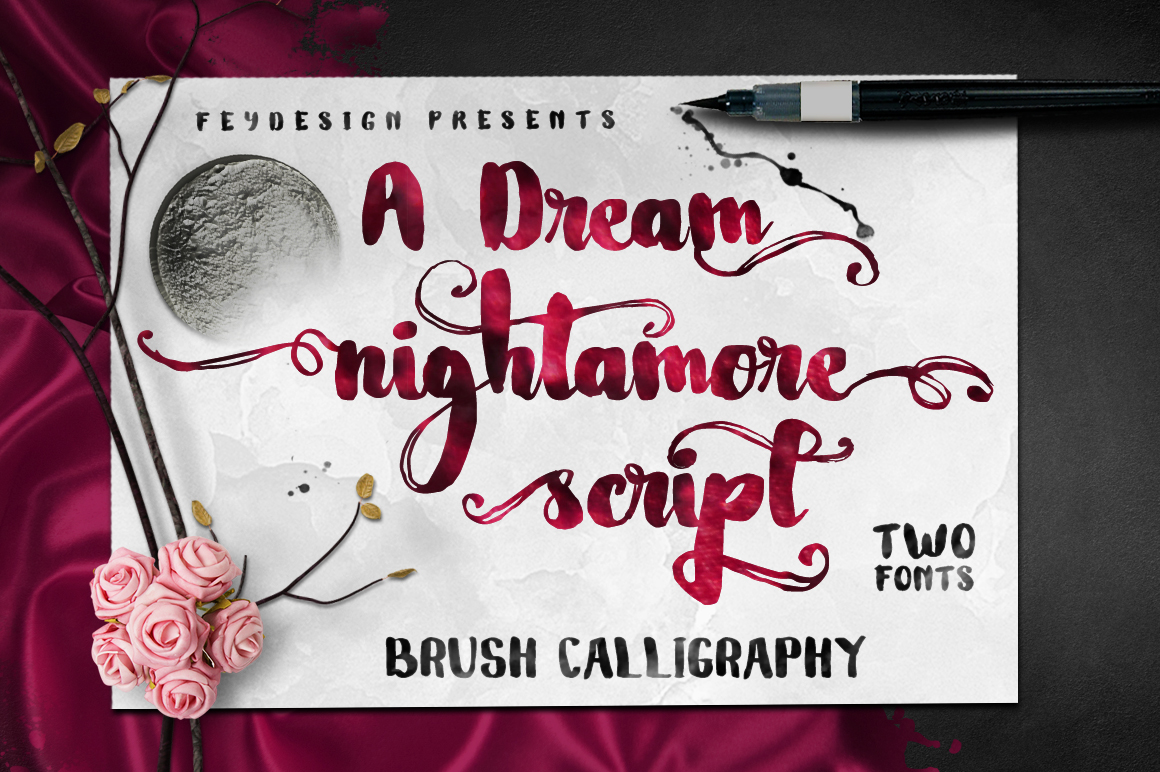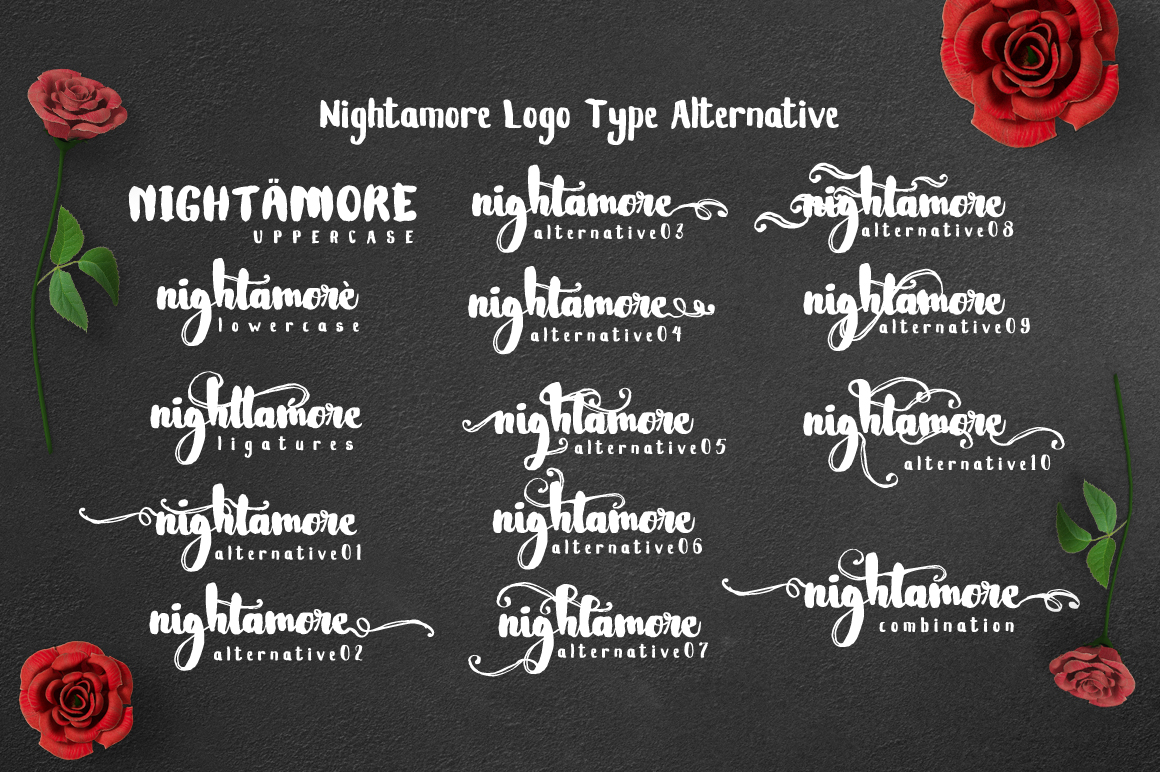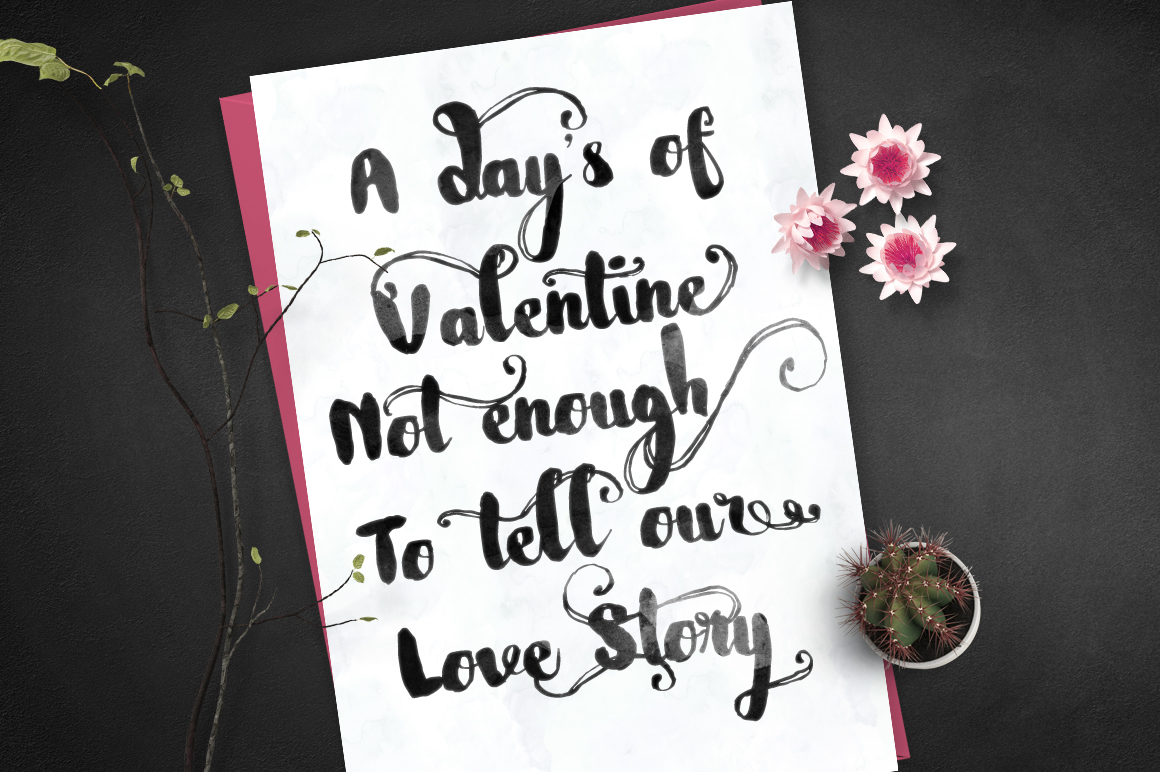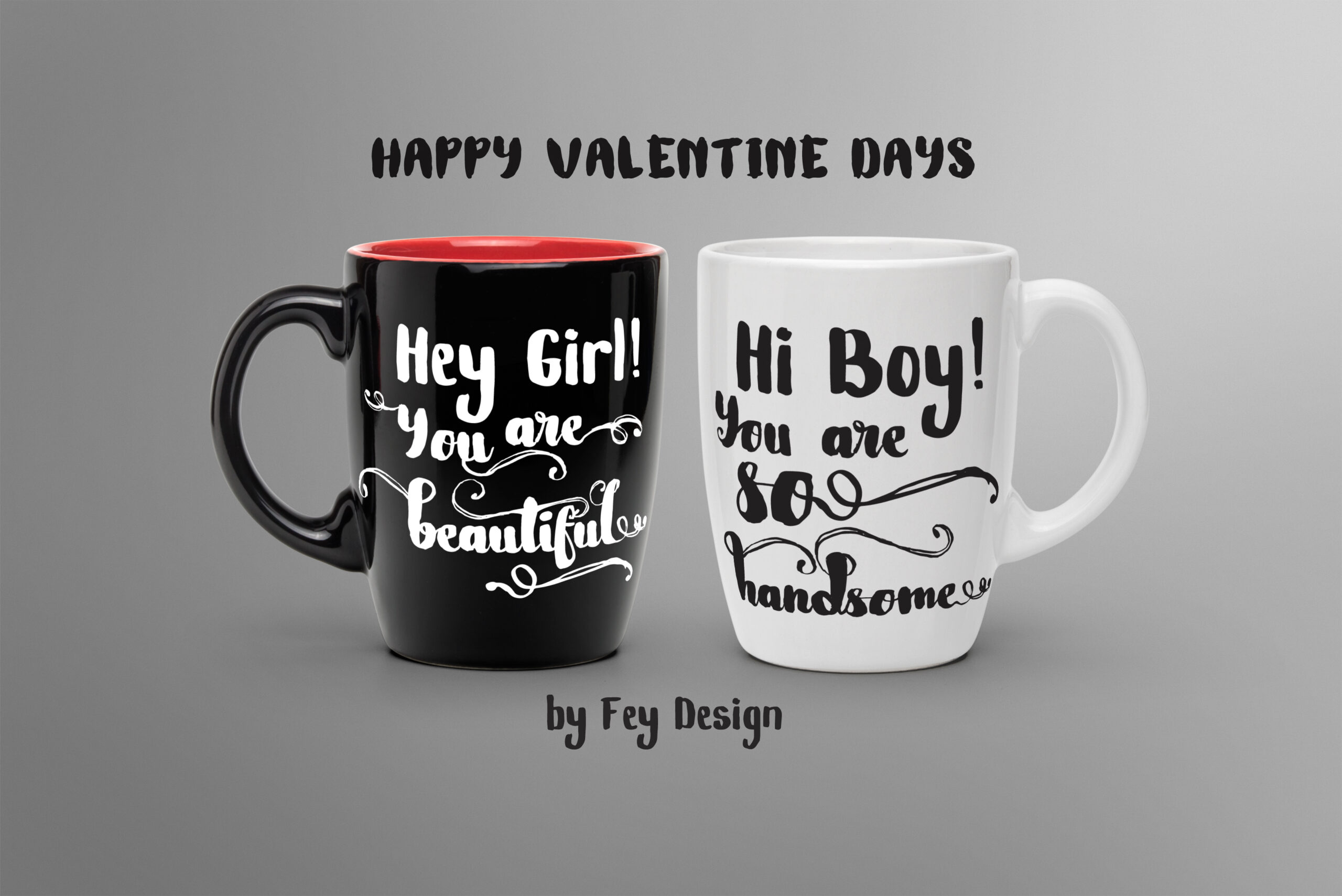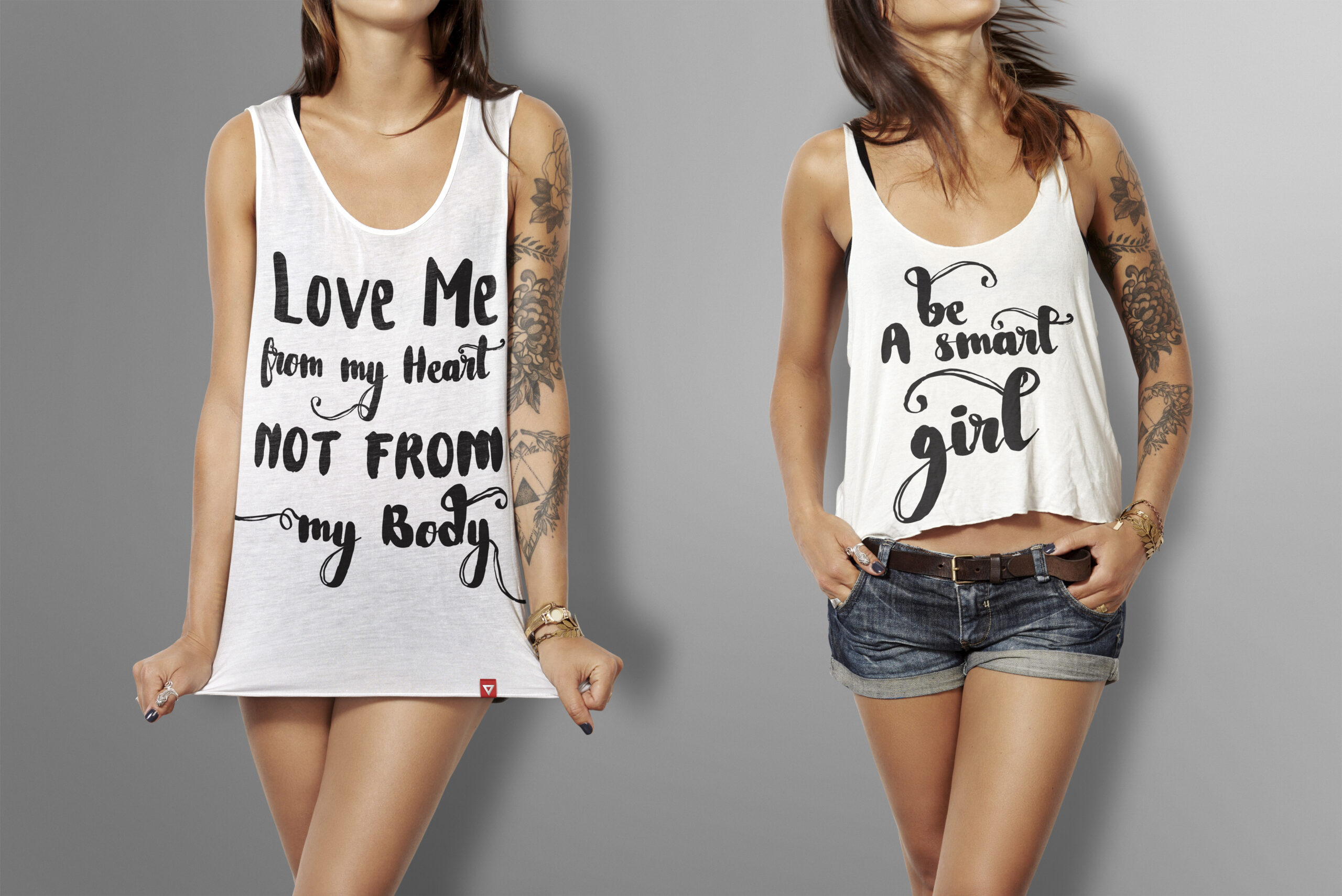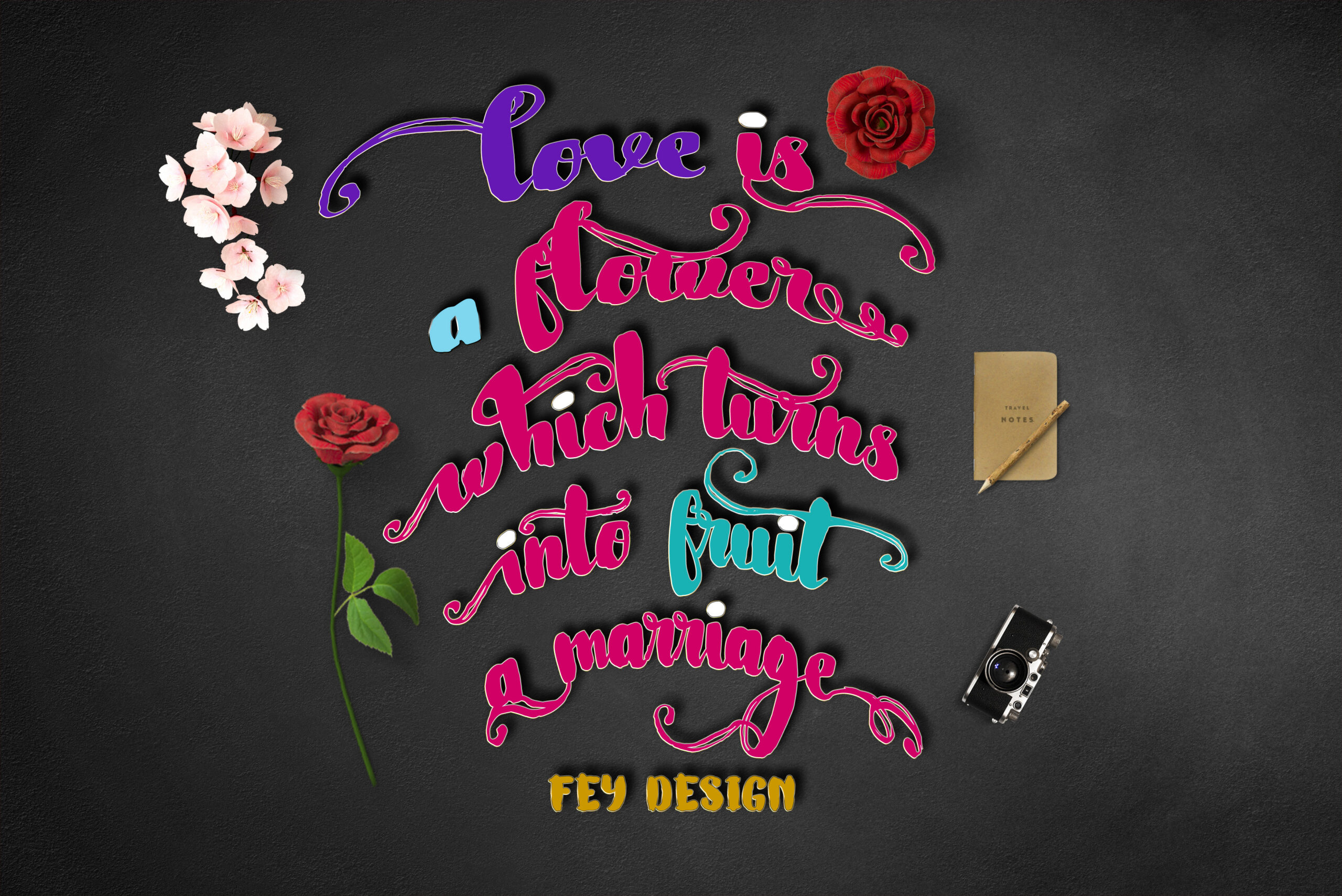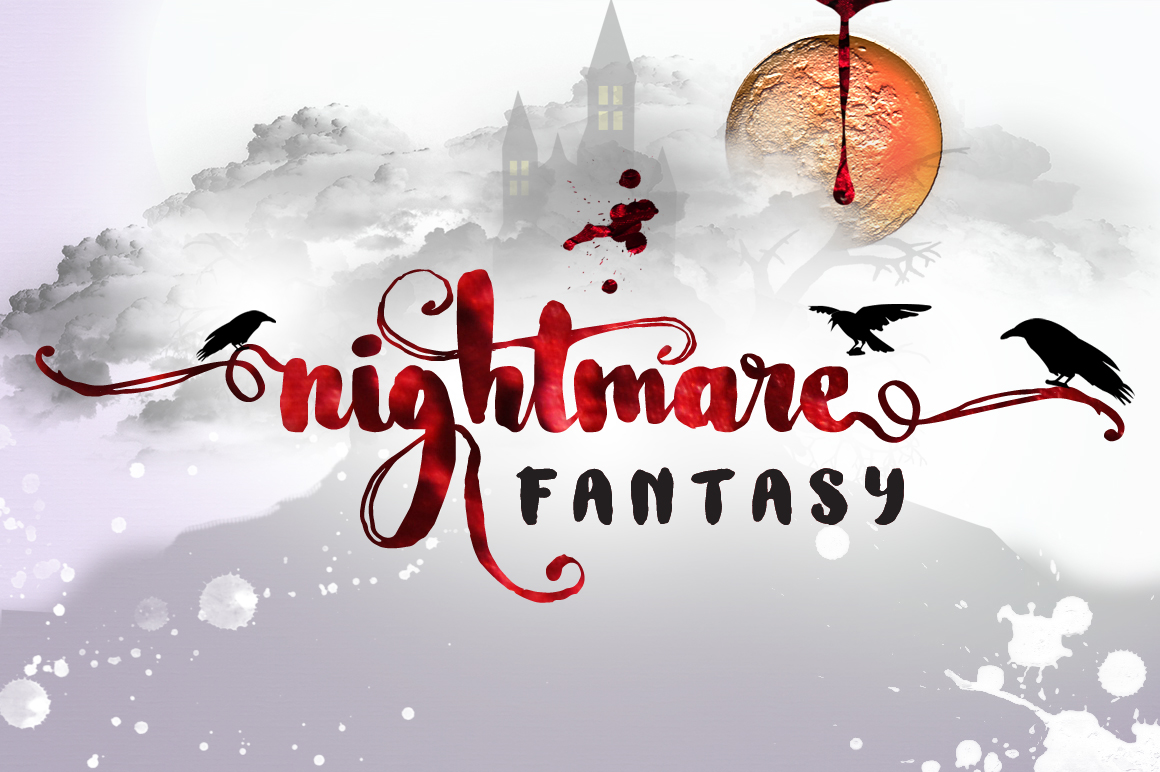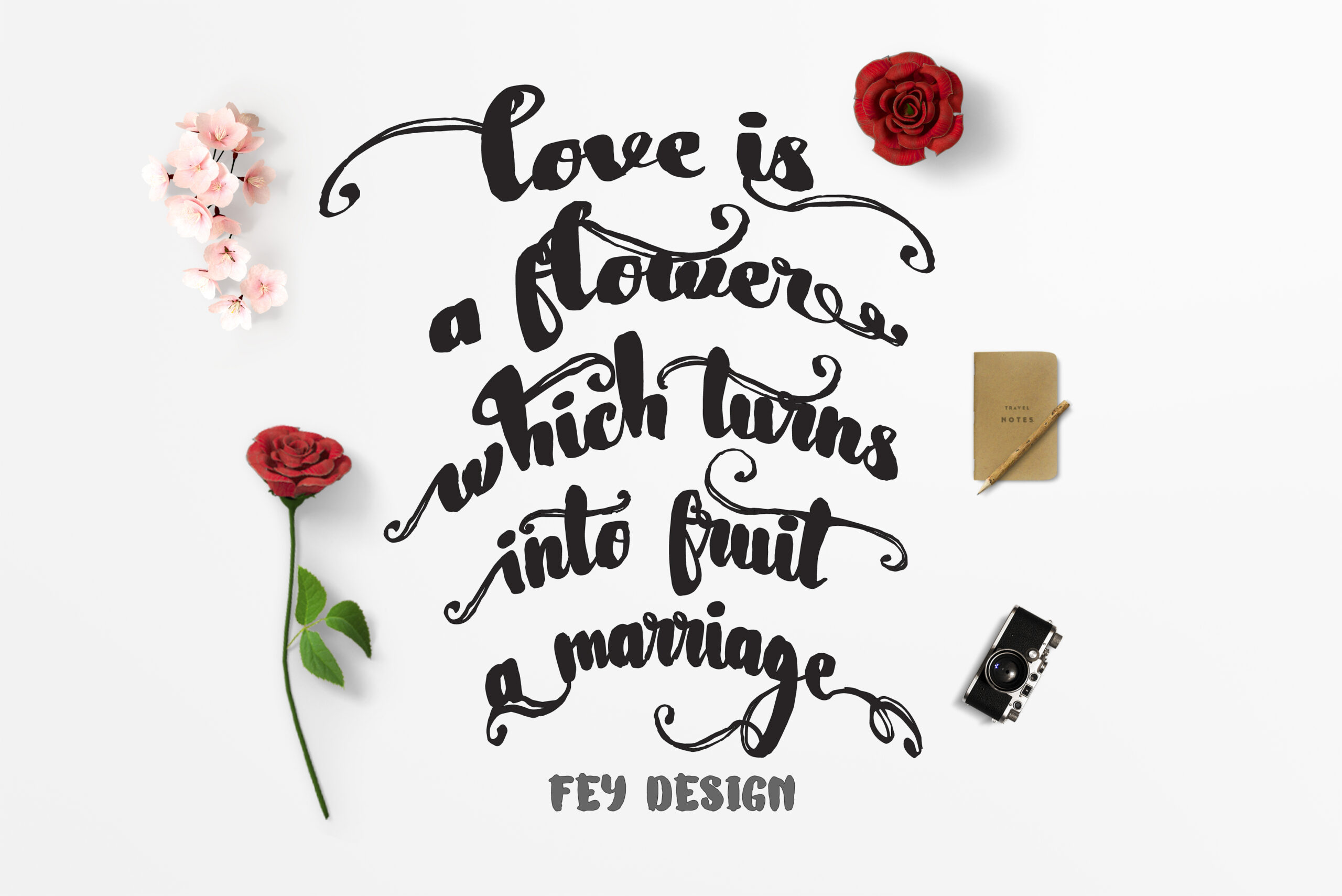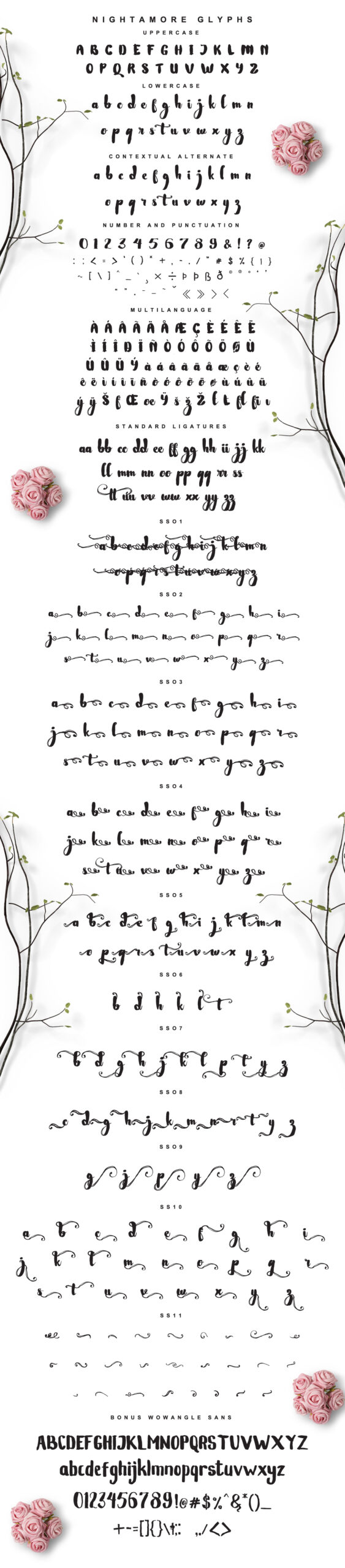
Nightamore Font
About Nightamore Font
Nightamore is a gorgeous font, perfect for a wide range of project types. This font comes with tons of styles and options, and works well with other complementary fonts.